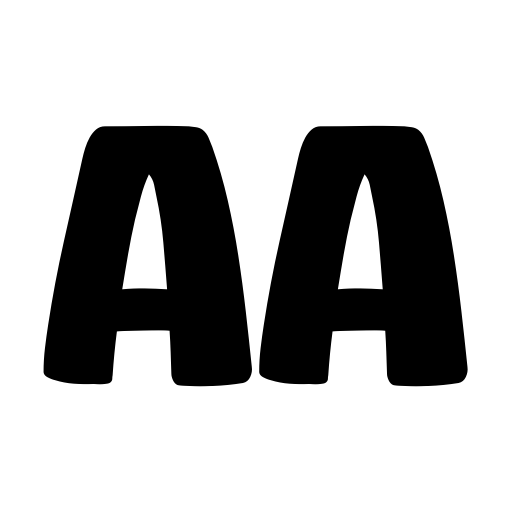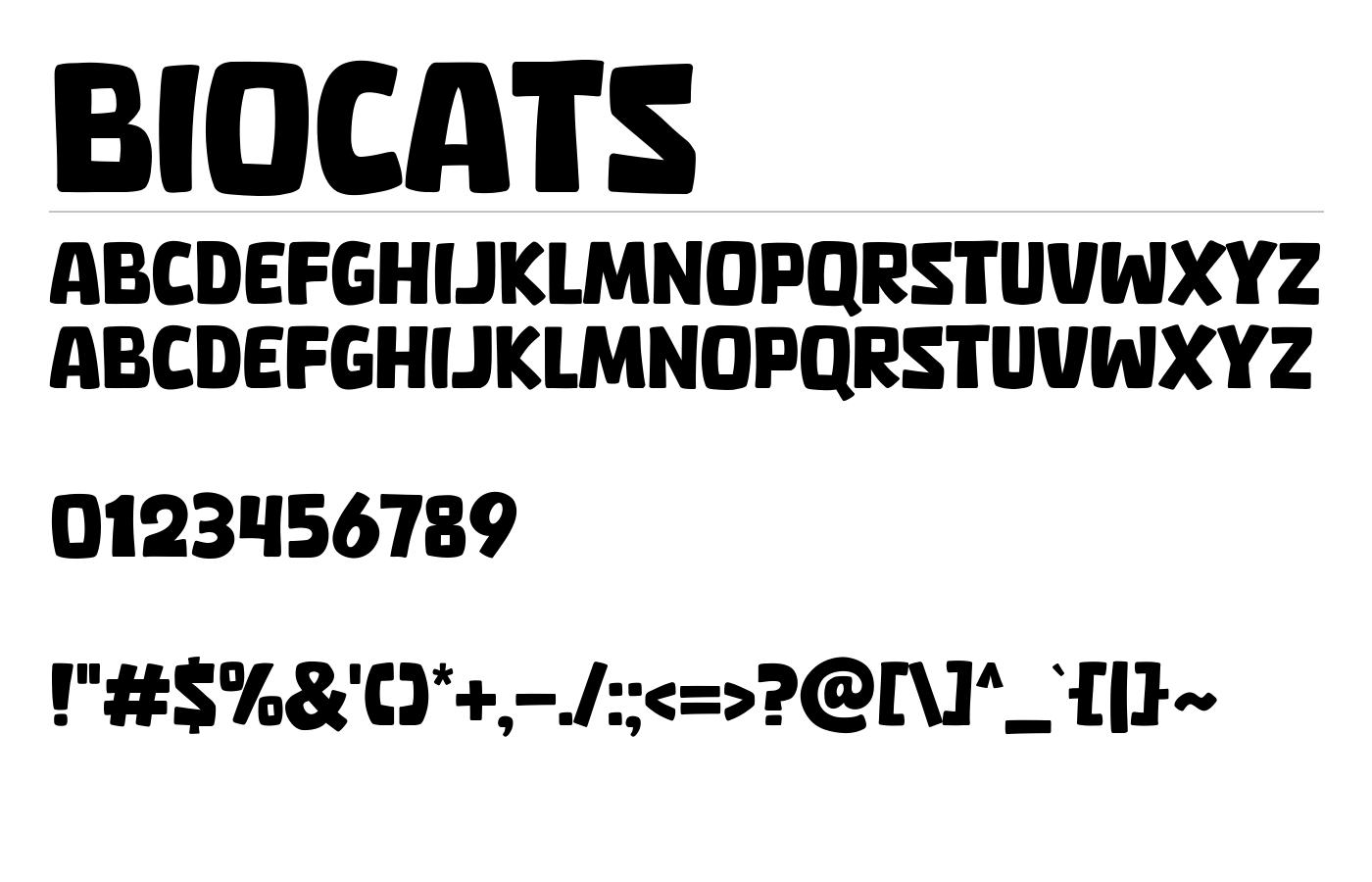
Biocats is a bold and playful sans serif font with a chunky, slightly irregular shape that gives it a fun and friendly personality. Its moderate x-height and tight spacing make it highly legible while conveying a casual, informal vibe perfect for creative, youthful branding and eye-catching headlines. This font works especially well in designs that aim to stand out with a quirky, energetic style without sacrificing readability.
Biocats Font
About Biocats Font